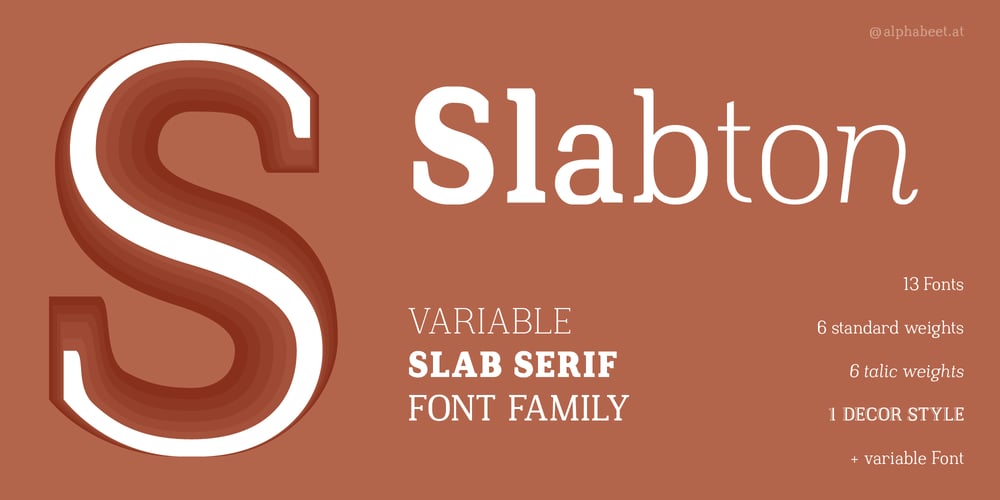
Slabton Font Family was designed by Florian Kriegner and published by alphabeet.at. Slabton contains 14 styles and family package options. Slabton is a font family in the slab serif style. There are six defined weights, from thin to black, and six italic weights as well as a variable font. All latin small caps are integrated and the font contains a lot of useful open type features and options. Also, there is an additional shaded decor style for decorative matters and elements like headlines and initials.